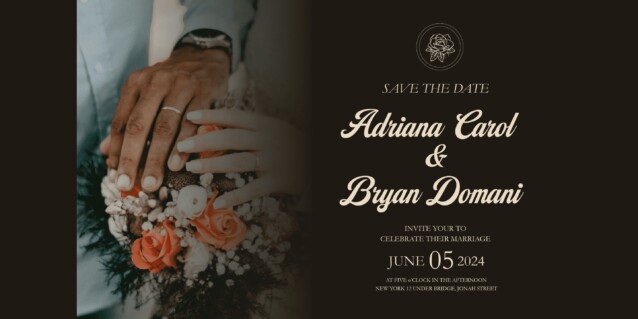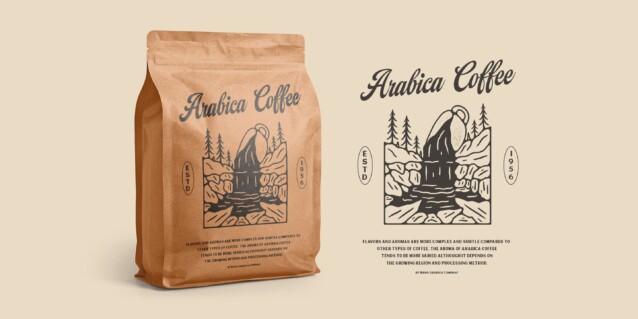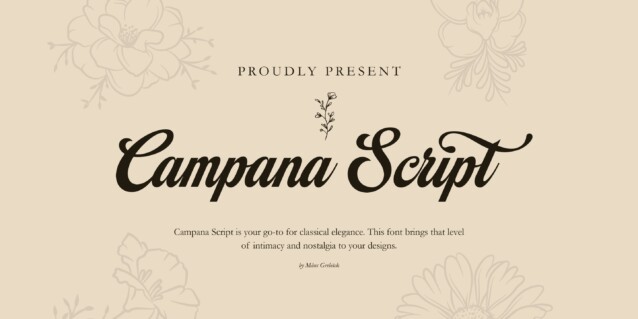
Campana Script Font
Campana Script Font is a harmonious blend of elegance and contemporary flair, seamlessly adaptable to modern and classic design landscapes. Picture walking into an old bookstore and discovering a handwritten love letter tucked inside a dusty novel. This font brings that level of intimacy and nostalgia to your designs. Designed with heavy lines and intricate swashes, Campana Script suits formal applications like wedding invitations, certificates, and classic logotypes. It has extensive lingual support, covering all Latin-based languages, from Northern Europe to South Africa, from America to South-East Asia. It contains all characters and symbols you’ll ever need, including all punctuation and numbers.